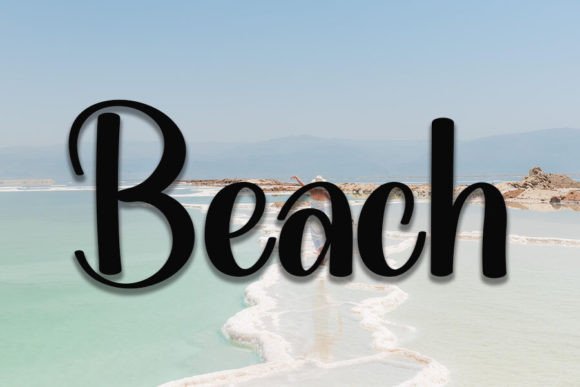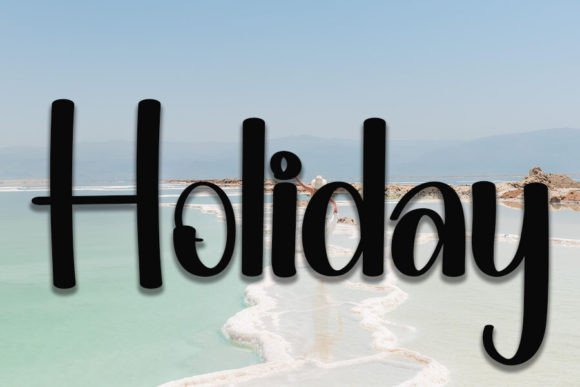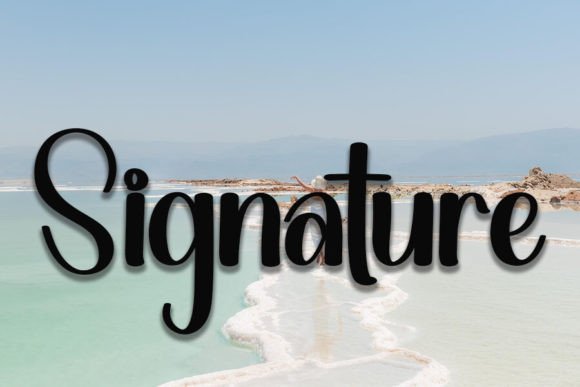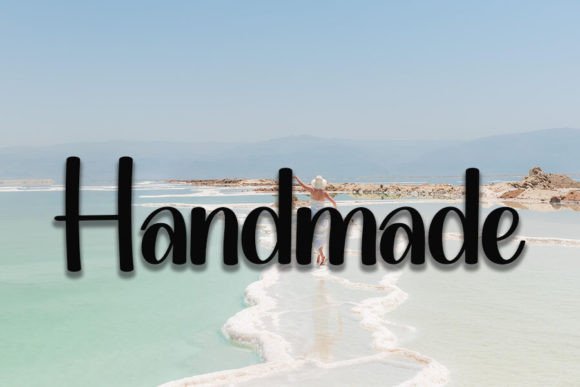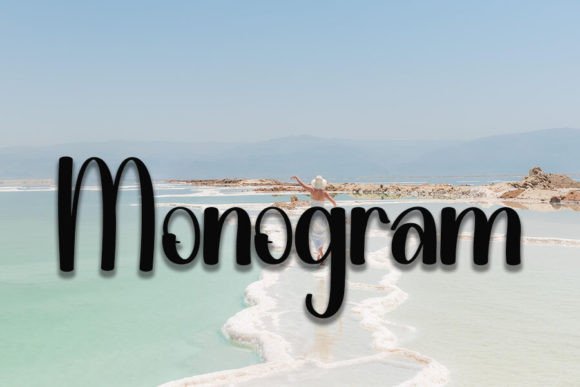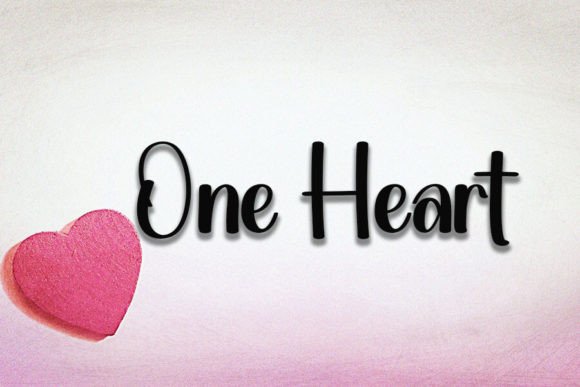
The Perfect Font for Your Masterpiece: Blissful Font
There’s nothing quite like the rush of creativity that comes with designing something truly special. You’ve got an idea, a spark of inspiration that refuses to be ignored. You see it in your mind’s eye, a beautiful, elegant design that’s just begging to be brought to life. And then, the search for the perfect font begins.
Enter Blissful Font, a stunning handwritten font that’s as beautiful as it is versatile. With its elegant touch and timeless style, this font is the perfect choice for designers looking to create truly spectacular designs. Whether you’re working on a wedding invitation, a logo, or a branding project, Blissful Font is sure to bring your vision to life. Its distinct and beautiful style makes it a valuable asset for any designer looking to add a touch of sophistication to their work.
Key Features of Blissful Font
- Font Family: Blissful Font is a unique, hand-drawn font family that includes 6 different styles: Regular, Italic, Bold, Bold Italic, Outline, and Shadow.
- Character Set: Blissful Font includes a wide range of characters, including Latin, Cyrillic, and Greek alphabets, as well as punctuation and symbols.
- Unique Characteristics: Blissful Font features a unique, hand-drawn design with subtle texture and imperfections, giving it a warm and organic feel.
Blissful Font Review
Overall, I was quite excited to dive into the Blissful Font. As a designer, I appreciate a well-designed font that can elevate a project to the next level. Here’s what I found.
- ✨ The Blissful Font has a unique, modern feel to it, which I think would be perfect for a wide range of projects, from branding to digital products.
- ✨ The font is highly legible, even at smaller sizes, which makes it a great choice for body text or titles where readability is key.
- ✨ The font family is quite extensive, with multiple weights and styles to choose from, giving designers plenty of flexibility when working on a project.
- ⚠️ The Blissful Font lacks a certain level of sophistication, which might make it less suitable for high-end or luxury projects.
- ⚠️ Some of the characters, particularly in the more ornate styles, can be a bit over-the-top, which might not appeal to designers who prefer a more understated look.
Overall, I think the Blissful Font is a solid choice for designers who are looking for a modern, versatile font that can add some flair to their projects. While it may not be the best fit for every project, I think it has a lot of potential and can be a valuable addition to any designer’s toolkit.
Getting the Most Out of Blissful Font
Blissful Font is perfect for creating elegant and sophisticated designs. Tips for getting the most out of it include:
1. Use it for titles and headings to add a touch of elegance.
2. Pair it with a bold font for a striking contrast.
3. Experiment with different font sizes and colors to create a unique look.
Blissful Font is commonly used for:
2. Luxury brand logos and marketing materials.
3. High-end product packaging and labels.